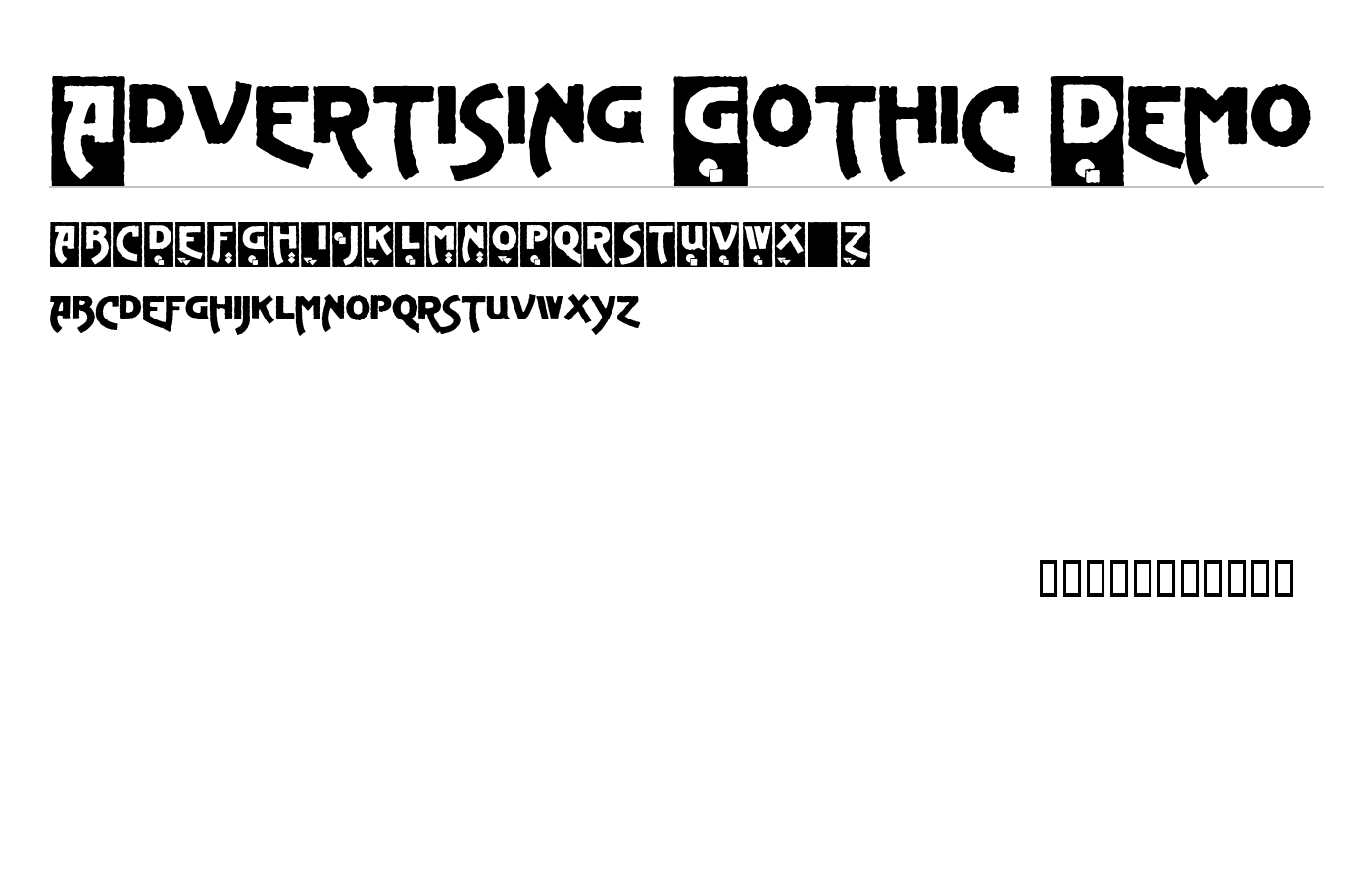
Advertising Gothic Demo is a bold, decorative sans serif font with a hand-crafted, slightly irregular style that gives it a vintage, quirky personality. Its uneven strokes, varied letter widths, and distinctive shapes make it ideal for eye-catching headlines, posters, or branding where a playful yet strong presence is desired. This font works best in expressive display contexts, adding a unique, artistic touch to creative projects and advertising materials.
Advertising Gothic Demo Font